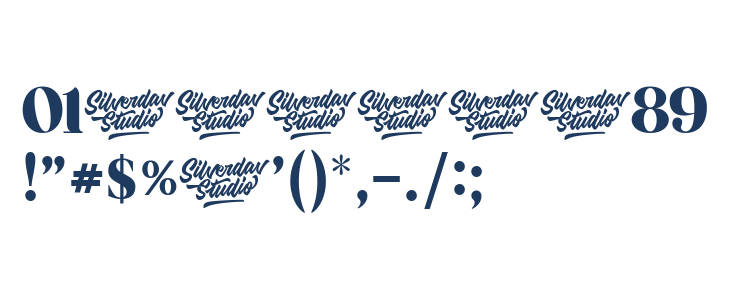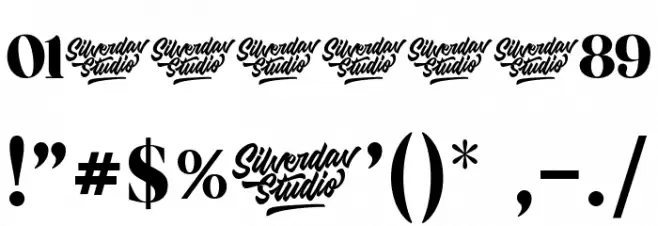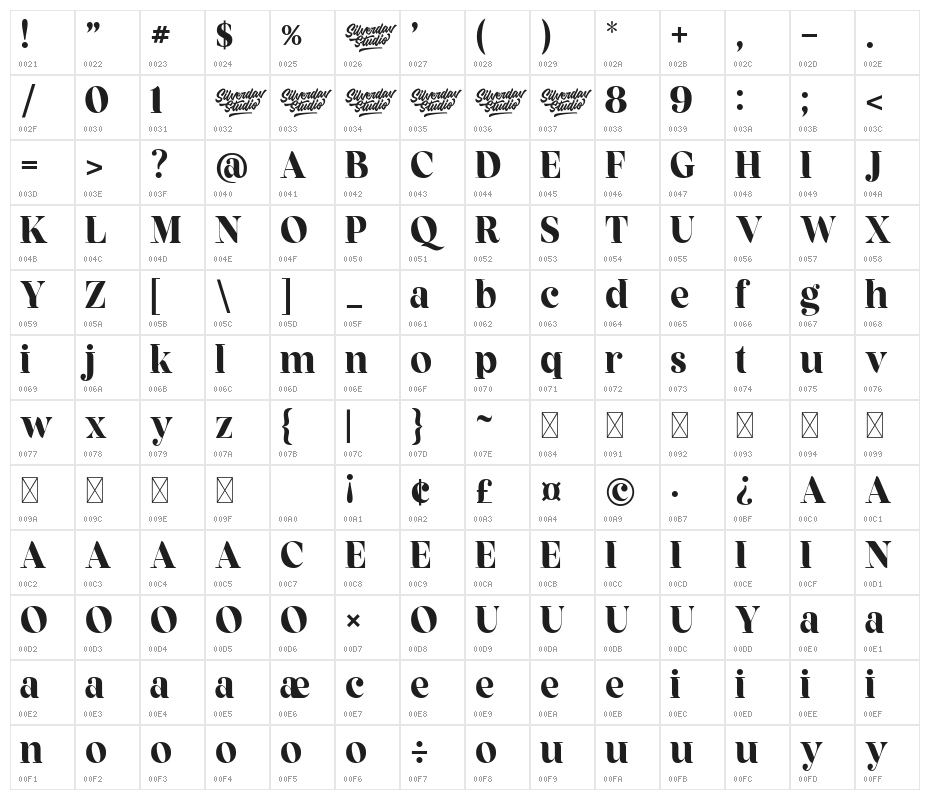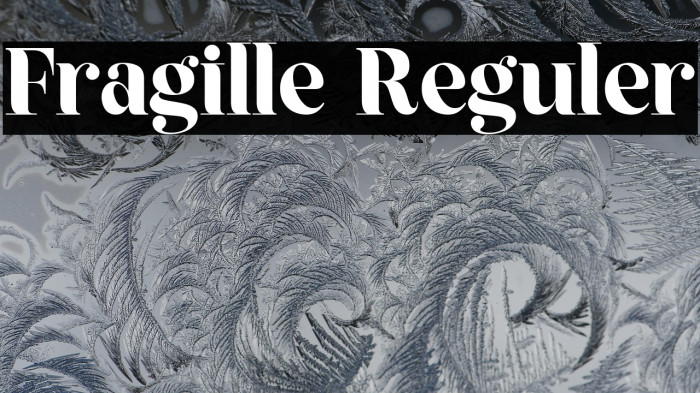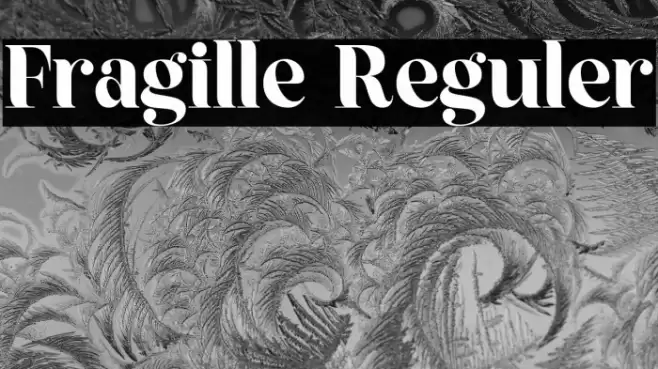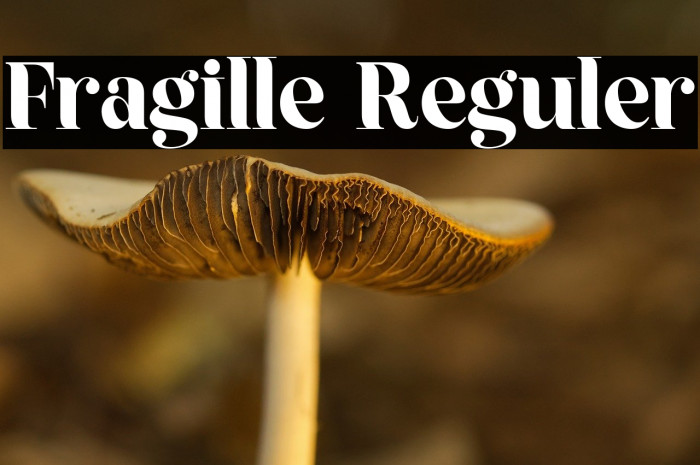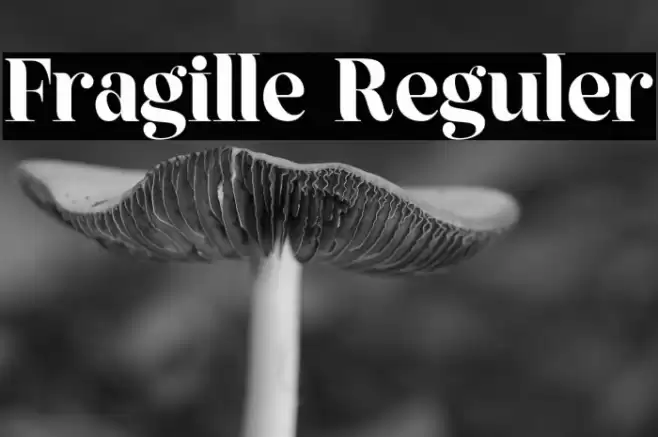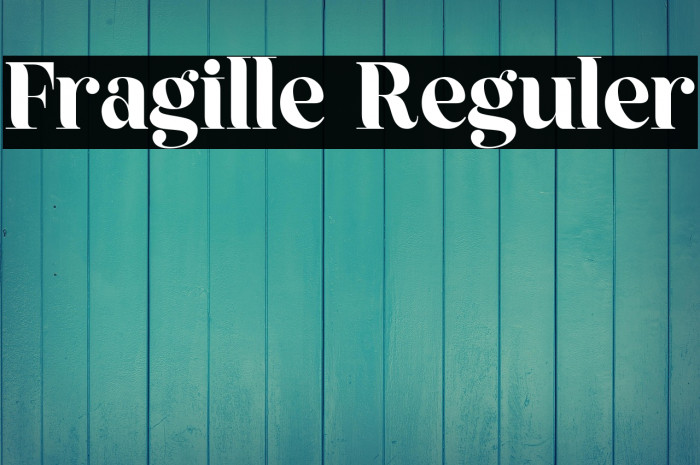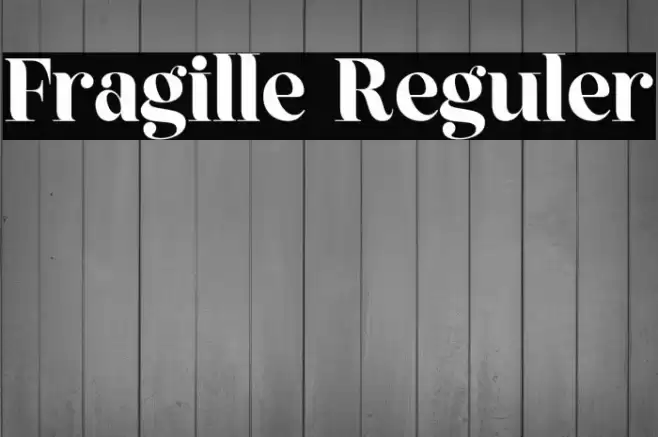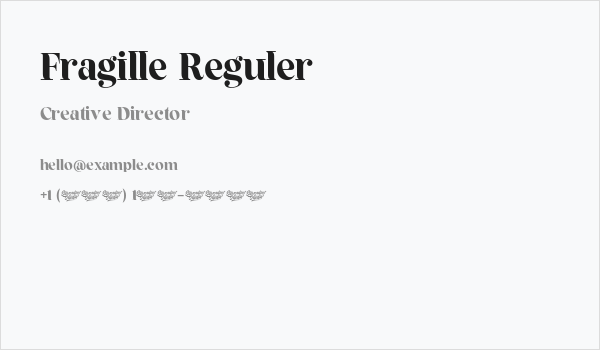
Fragille Reguler Font
Fragille Reguler Description
This font exhibits a bold and striking presence with its high contrast between thick and thin strokes. The uppercase letters are particularly commanding, with sharp serifs and a strong vertical emphasis. The lowercase letters maintain a consistent style, offering a harmonious blend of elegance and readability. The numerals are distinctive and align well with the overall aesthetic, while the special characters add a touch of flair. This font is well-suited for making a statement, whether in headlines or branding materials.
| Proposed Projects | Ideal for luxury branding, editorial headlines, and high-impact advertising campaigns. |